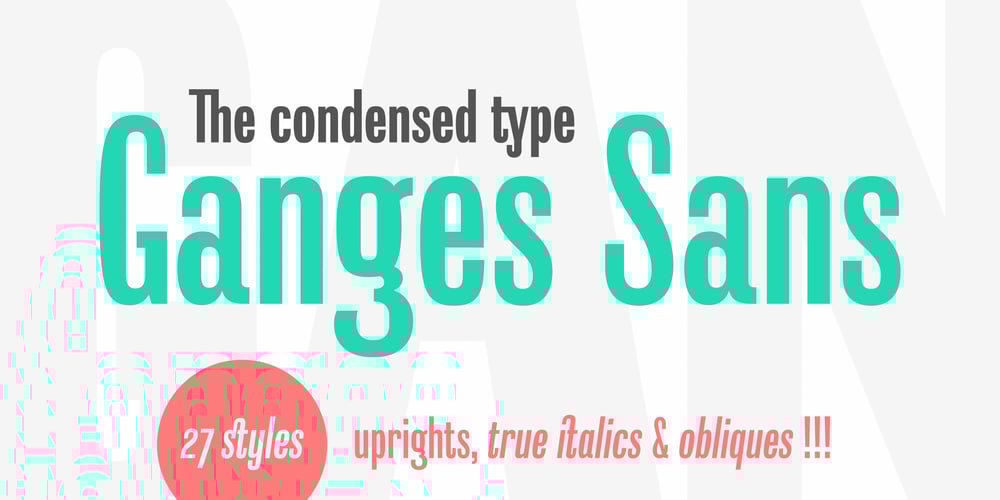
Ganges
Ganges font
Ganges Font Family was designed by Roch Modrzejewski and published by ROHH. Ganges contains 27 styles and family package options. Ganges is a condensed sans serif typeface inspired by Central European advertising typography from late XIX century. The font has condensed proportions and original letter shapes. Ganges is designed mainly for editorial design, especially for display use, as well as short paragraphs of text. Its narrow proportion makes it very practical to use for posters and magazine covers. Characteristic letter forms fit great for branding, logo and packaging design. It is also a very interesting choice for websites and e-book headlines. Ganges family consist of 27 fonts – 9 weights, 9 italics and 9 obliques. It supports extended set of latin languages, as well as broad number of OpenType features, such as case sensitive forms, standard and dicretionary ligatures, stylistic alternates, contextual alternates, lining, oldstyle and tabular figures, slashed zero, fractions, superscript and subscript, ordinals, currencies and symbols.